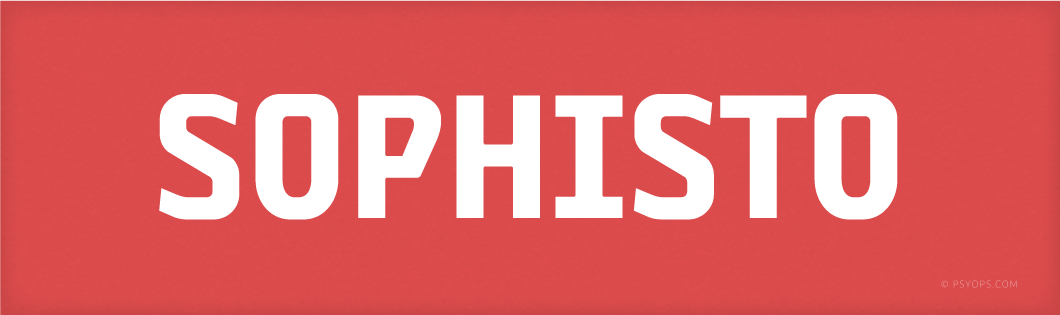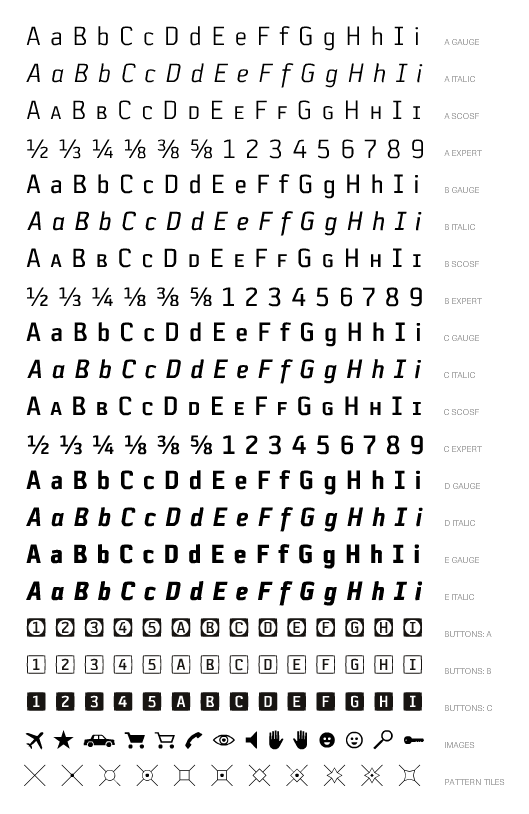
A successful collaboration between Stefan Hattenbach and Psy/Ops Type Foundry. In search for a Sans Serif with a significant and strong character but still ”low-key” enough to be functional for most areas, Sophisto finally grew into an extensive family of 21 parts. Made carefully to fit both text- and display solutions. The buttons, images and patterns makes it even more complete as a family.
The Sophisto fonts include: Western and Eastern European characters, ligatures, stylistic alternates, and more. Small Caps, Old Stye Figures, Expert Figures, and Dingbat fonts are available.